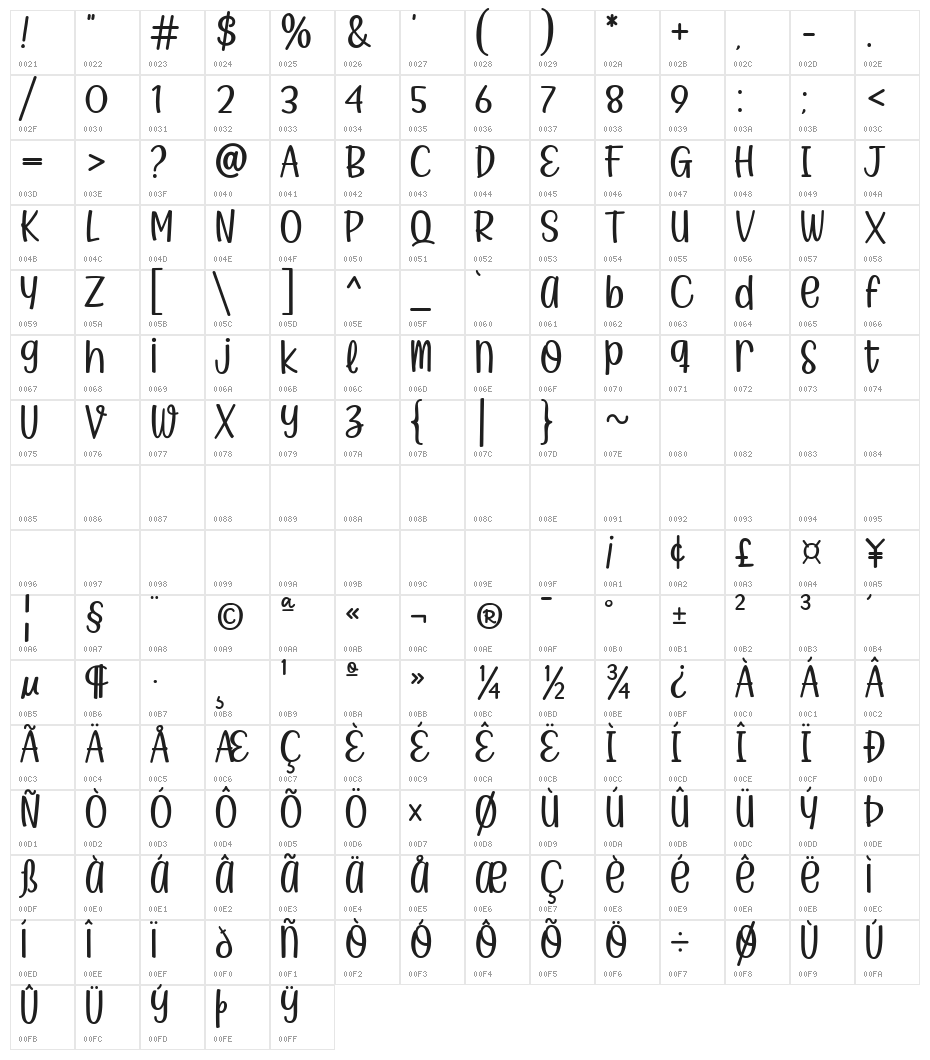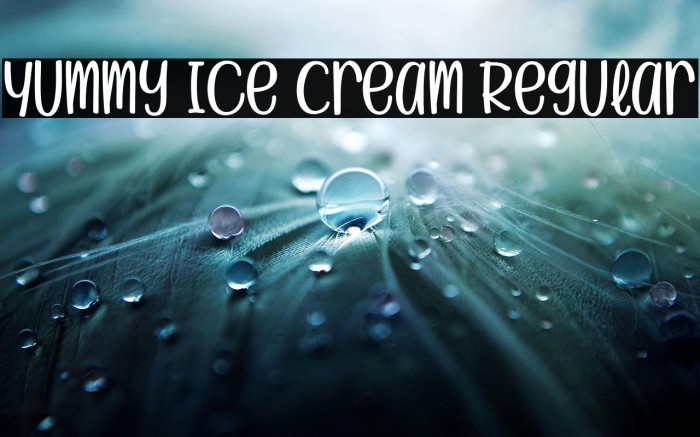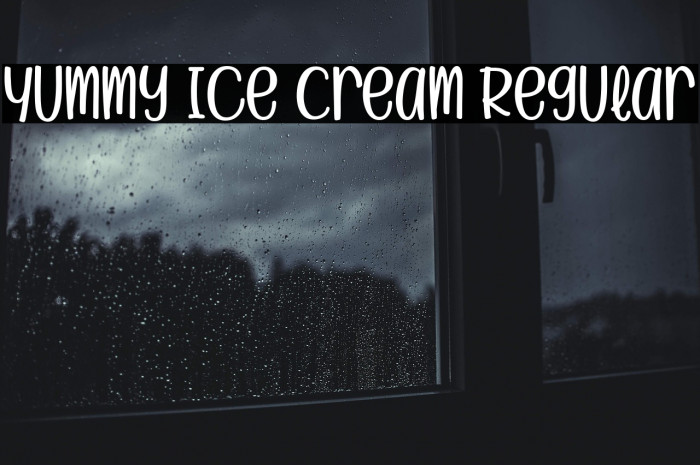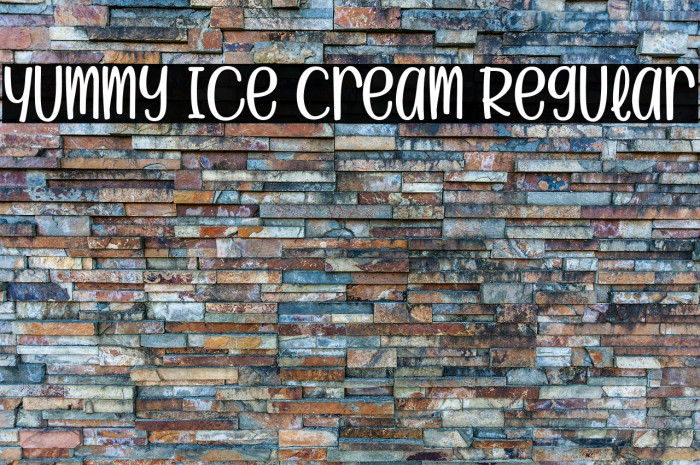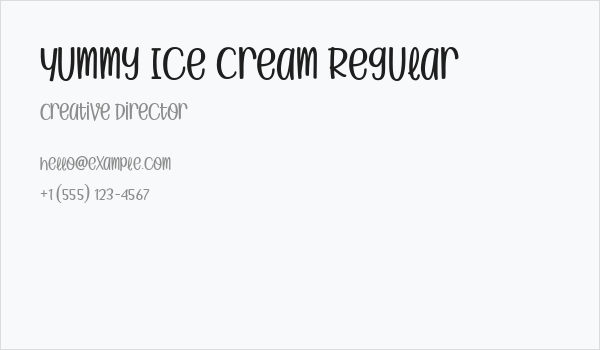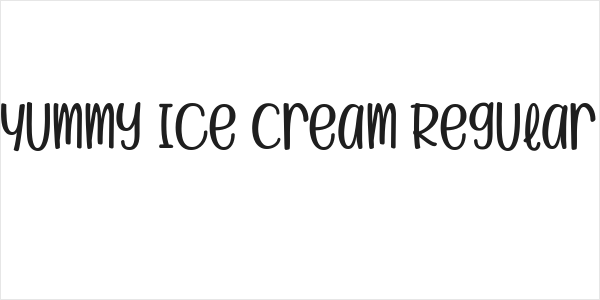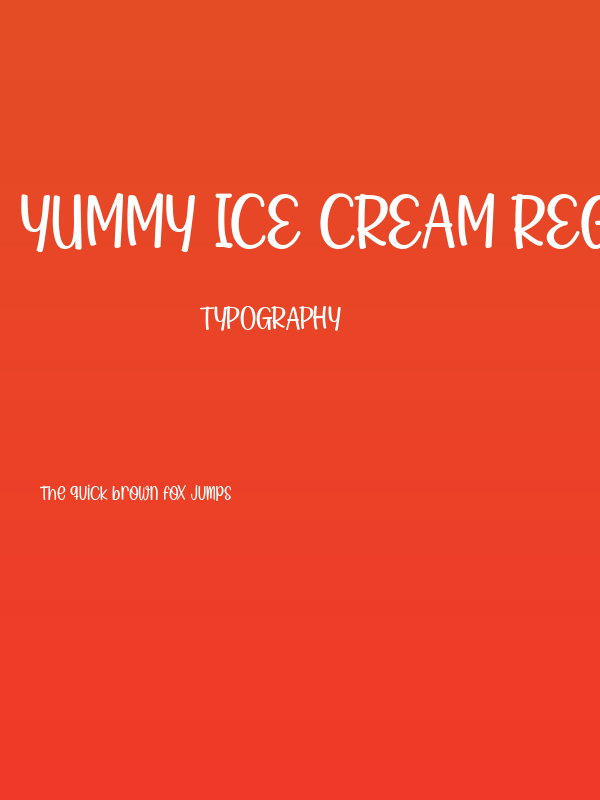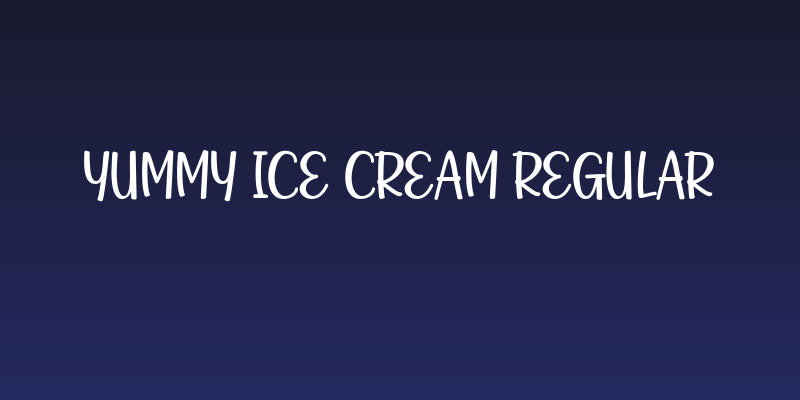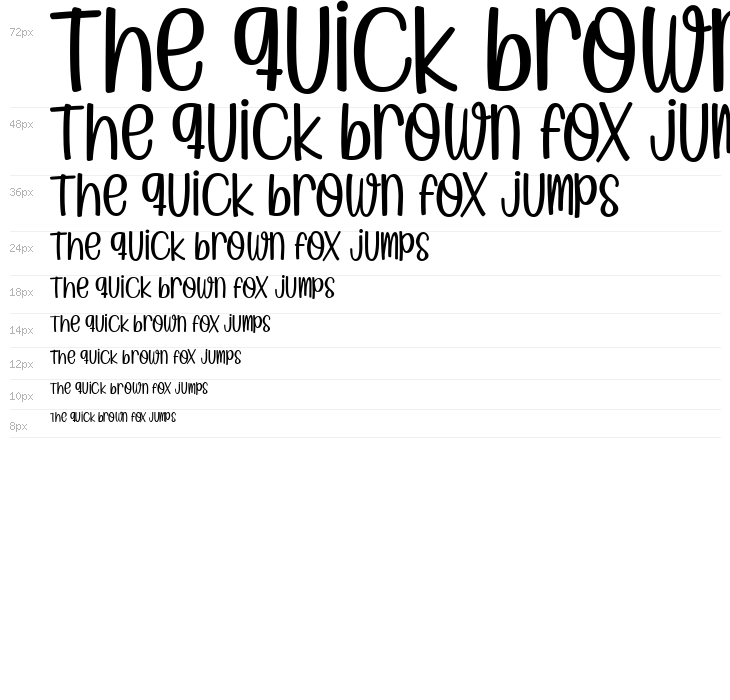
Yummy Ice Cream Regular Font
Yummy Ice Cream Regular Description
This playful and whimsical font features a handwritten style with smooth, rounded edges and a casual, friendly appearance. The letters are bold and slightly irregular, giving them a lively and dynamic feel. The uppercase and lowercase characters maintain a consistent style, with a slight slant that adds to the informal look. The numbers and special characters are equally expressive, fitting seamlessly with the overall aesthetic. This font exudes a sense of fun and creativity, making it ideal for projects that require a touch of personality and charm.
| Proposed Projects | Perfect for children's books, playful branding, greeting cards, and creative posters. |